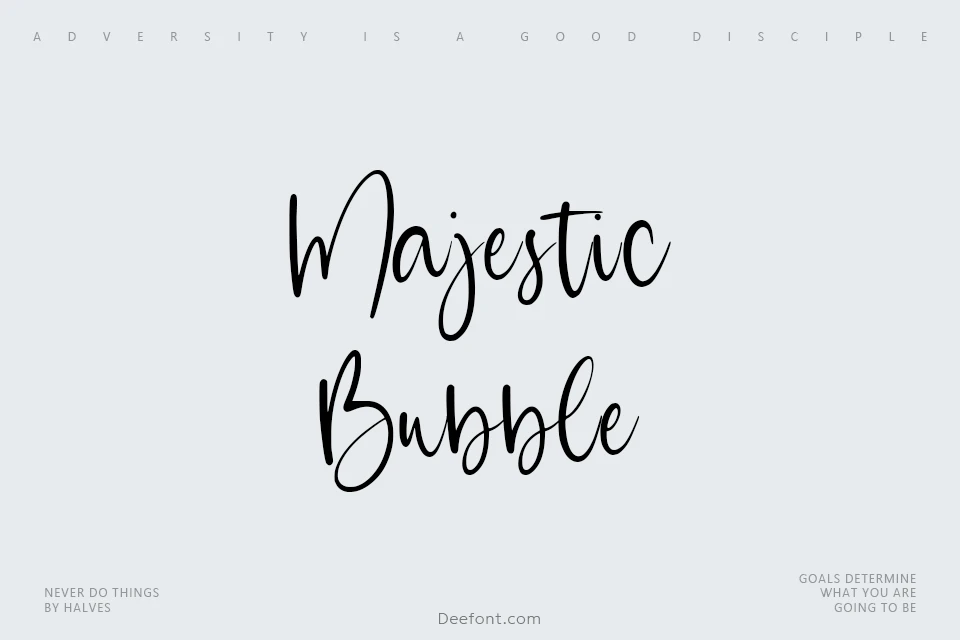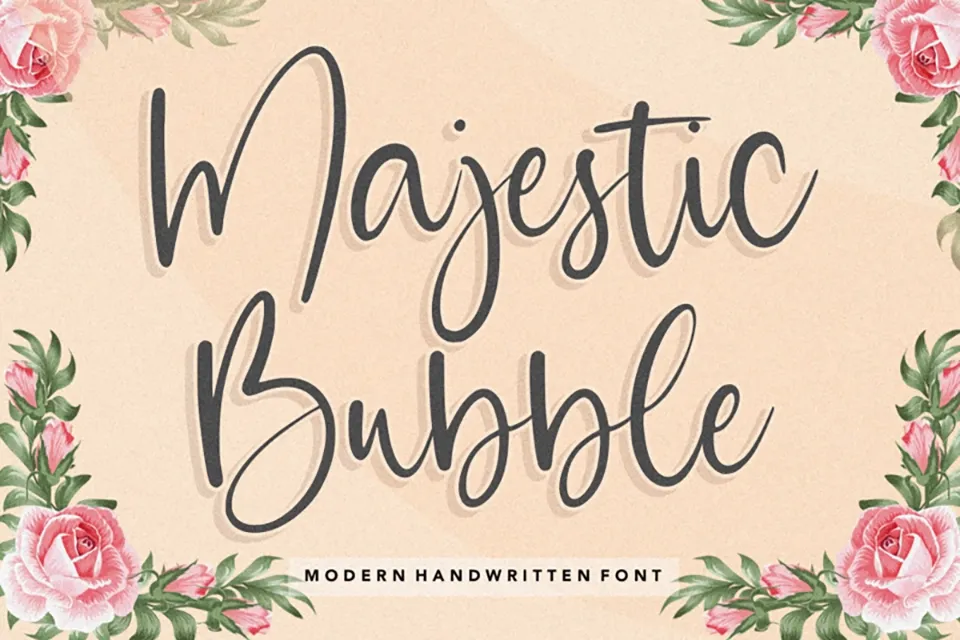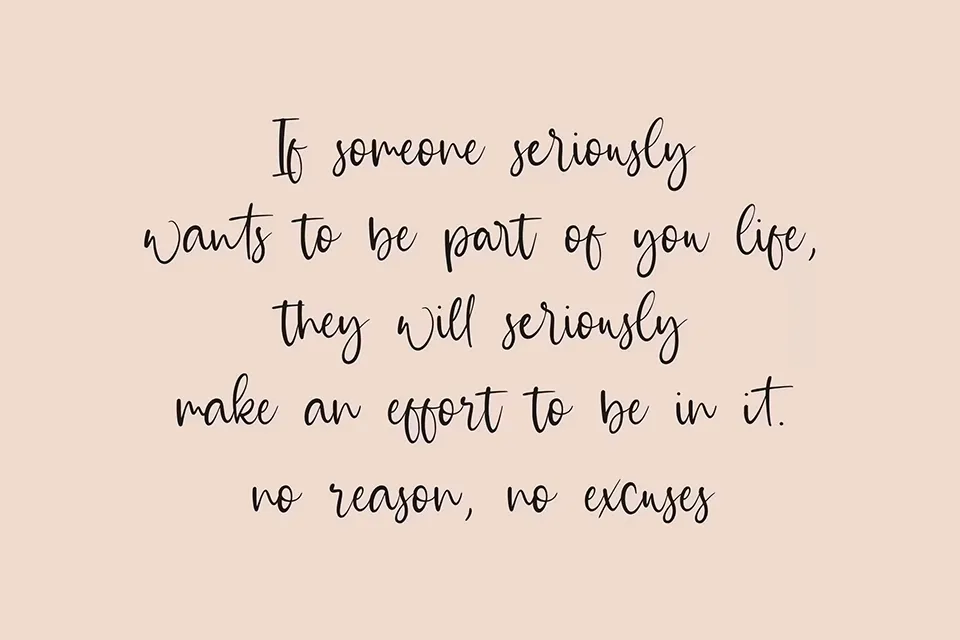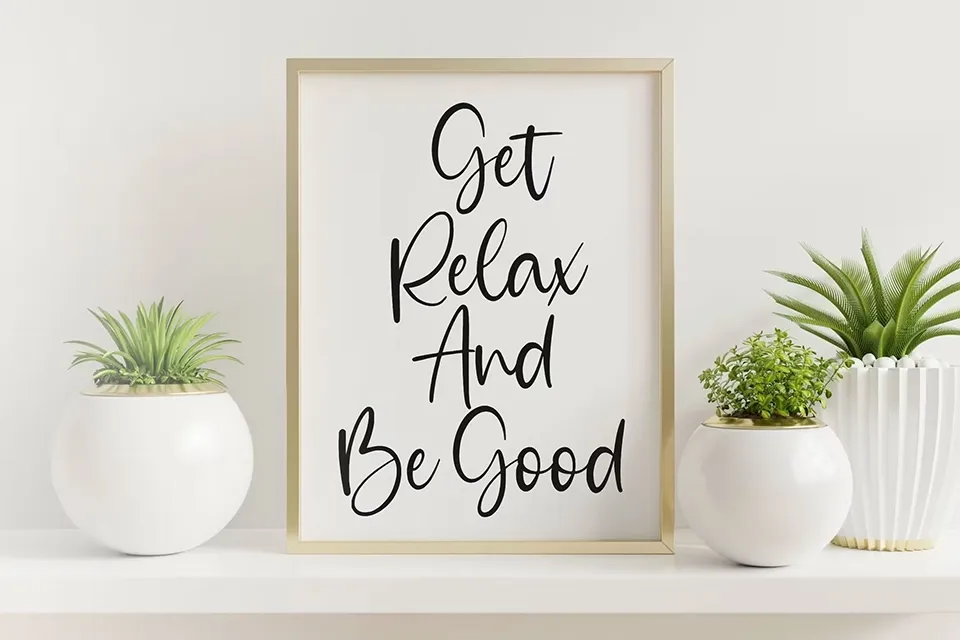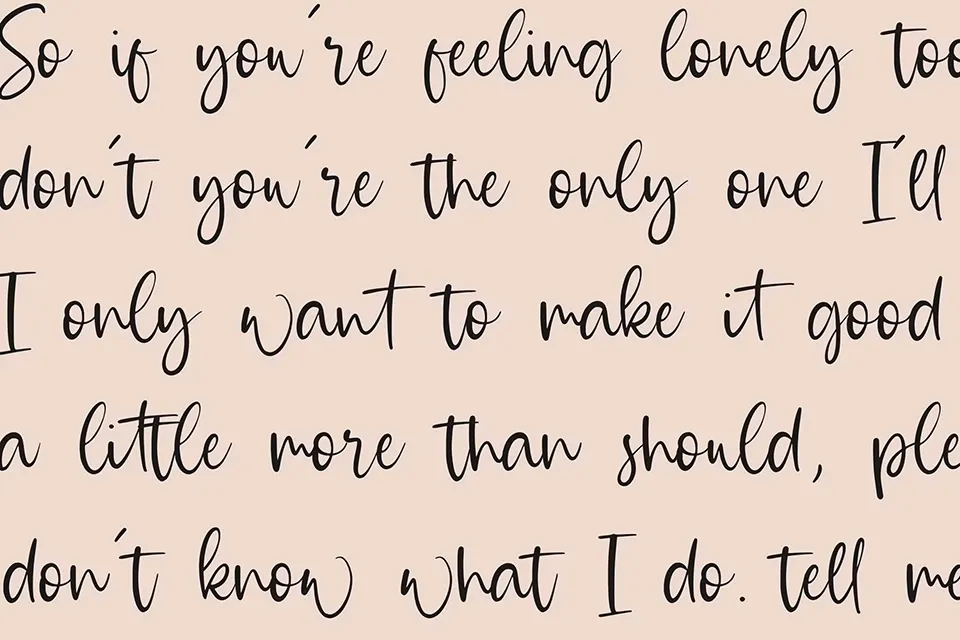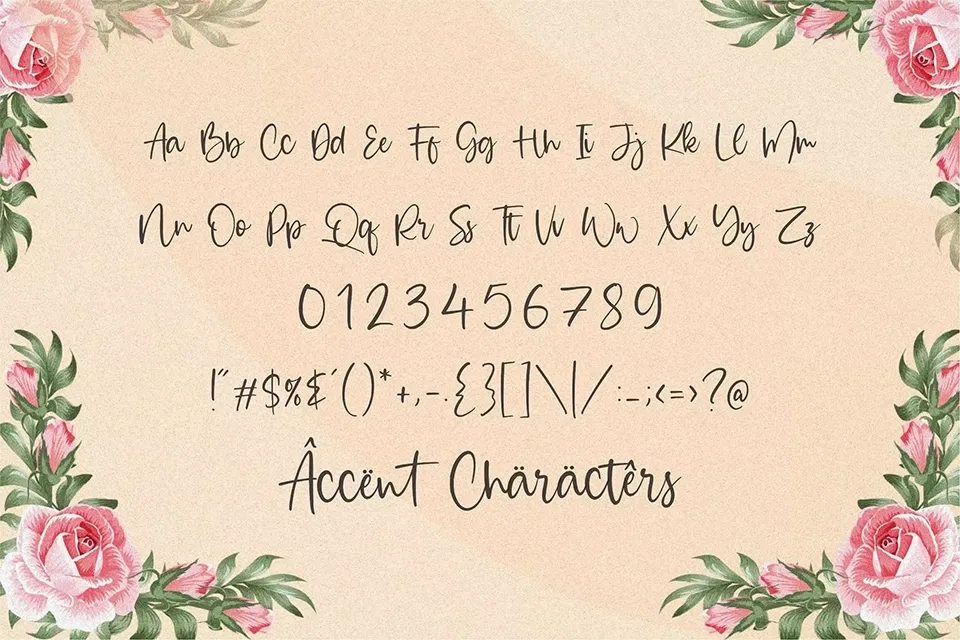
Majestic Bubble Handwritten Font
Majestic Bubble Handwritten Font is a modern handwritten font that exudes elegance and warmth. With its flowing, natural strokes and a touch of playful sophistication, Majestic Bubble Handwritten Font is perfect for wedding invitations, greeting cards, branding, social media graphics, and any project that calls for a personal and stylish handwritten touch. Its versatile design ensures your typography stands out with charm and grace.